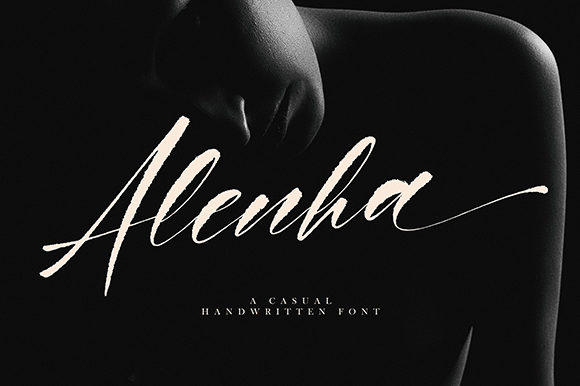
Get ready to fall in love with the enchanting allure of Alenha Font, a script masterpiece crafted by the talented minds at Pineungtype & Missinklab. Each letter dances across the page like a delicate brushstroke, exuding an air of effortless elegance that will captivate your creative spirit.
Whether you're a seasoned designer or just starting your typographic journey, Alenha Font is the perfect companion for any project that demands a touch of sophistication and charm. Its versatile nature makes it an ideal choice for everything from wedding invitations to branding materials to social media posts.
Indulge in the beauty of Alenha Font and let its graceful curves and enchanting style inspire you to create designs that will leave a lasting impression. Embrace the power of handwritten elegance and watch your creative visions come to life with Alenha Font.